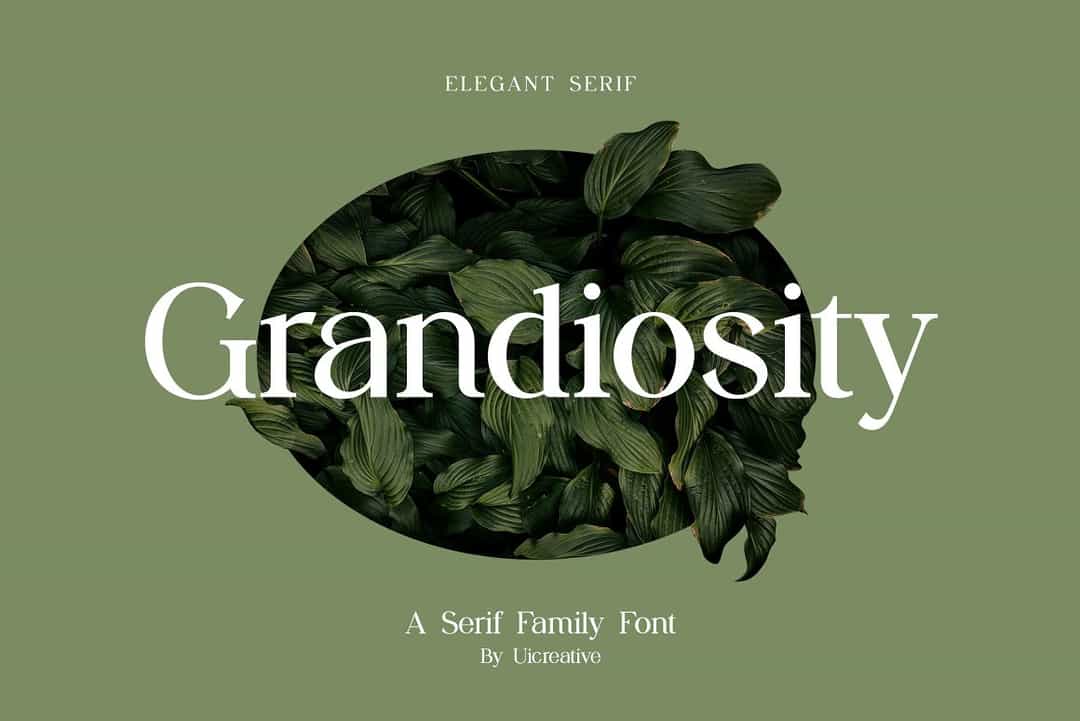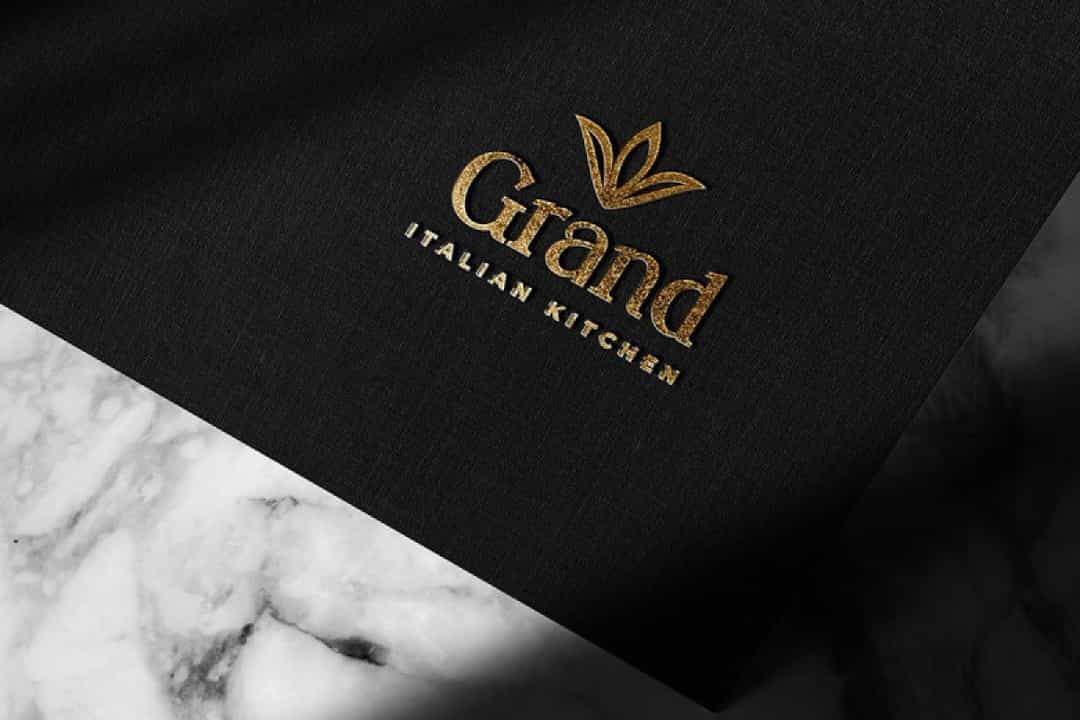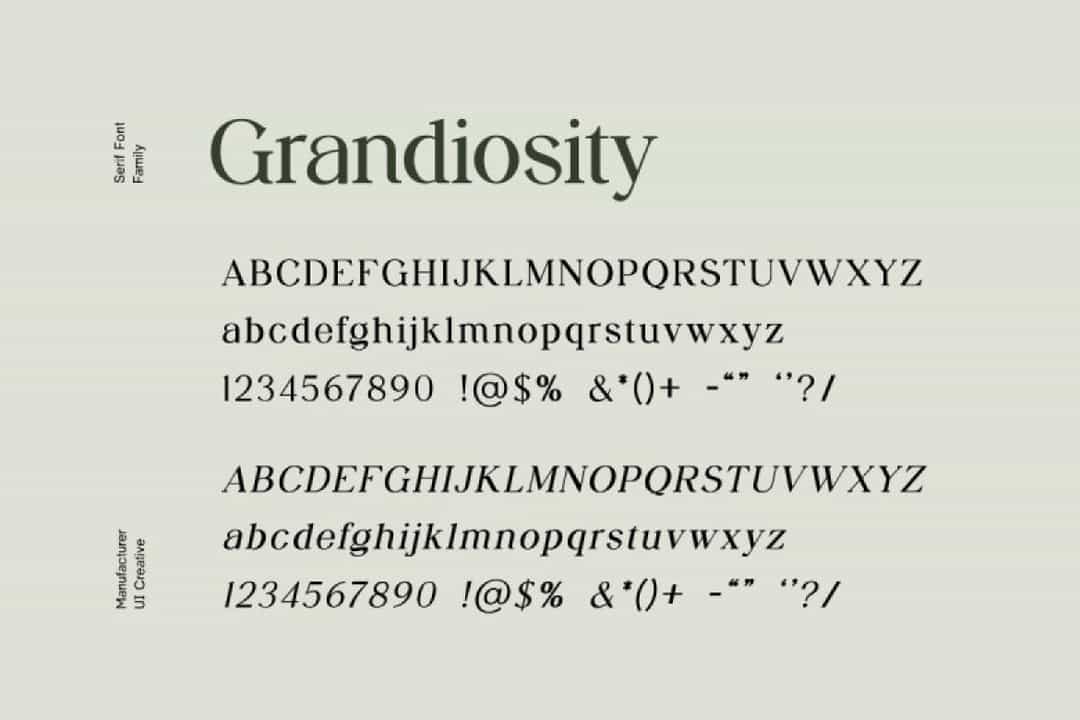
UICreative has designed the exquisite and luxurious Grandiosity font family with many applications in mind, such as logo design, stationery layouts, signature wedding invitations, typography quotes on book covers or magazine covers, headers for websites or branding of clothing packaging designs or editorial design work demonstrating both feminine and masculine qualities.